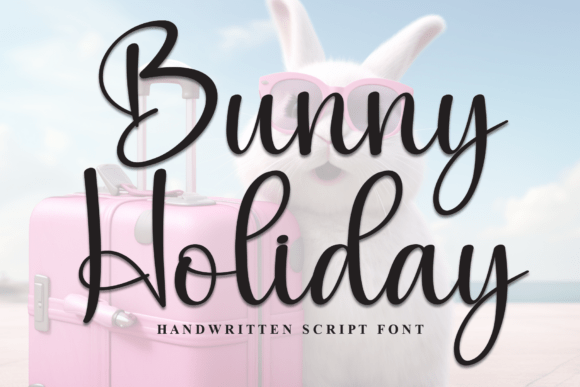
Bunny Holiday Font: Elevate Your Designs with Elegance and Playfulness
Are you looking for a font that can add a touch of sophistication and whimsy to your designs? Look no further than the Bunny Holiday font. This stylish handwritten script font is designed to capture the essence of elegance and playfulness, making it perfect for a wide range of creative projects. In this article, we’ll explore the features and benefits of the Bunny Holiday font, and show you how to use it to take your designs to the next level.
What is Bunny Holiday Font?
Bunny Holiday is a beautiful handwritten script font that is characterized by its flowing curves and natural rhythm. The font is designed to evoke a sense of warmth, sophistication, and creativity, making it perfect for designers who want to add a personal touch to their work. With its elegant and playful design, Bunny Holiday is ideal for use in invitations, branding, social media, and any other project where you want to make a lasting impression.
Key Features of Bunny Holiday Font
- Handwritten Script Font: Bunny Holiday is a handwritten script font that is designed to look natural and effortless.
- Flowing Curves: The font features flowing curves and a natural rhythm that gives it a sense of movement and energy.
- Elegant and Playful: Bunny Holiday is both elegant and playful, making it perfect for designers who want to add a touch of sophistication and whimsy to their work.
- Multilingual Support: The font supports multiple languages, making it a great choice for designers who work with international clients.
Benefits of Using Bunny Holiday Font
- Adds a Personal Touch: The font’s handwritten design gives it a personal and charming touch that can help your designs stand out.
- Versatile: Bunny Holiday is a versatile font that can be used in a wide range of creative projects, from invitations and branding to social media and more.
- Easy to Read: The font is easy to read, even at small sizes, making it perfect for use in body text and captions.
- Unique and Creative: The font’s unique and creative design can help your designs look fresh and original.
In conclusion, the Bunny Holiday font is a beautiful and versatile font that can add a touch of elegance and playfulness to your designs. With its flowing curves and natural rhythm, it’s perfect for use in invitations, branding, social media, and any other project where you want to make a lasting impression. By following the tips outlined in this article, you can get the most out of the Bunny Holiday font and create designs that are truly unforgettable.